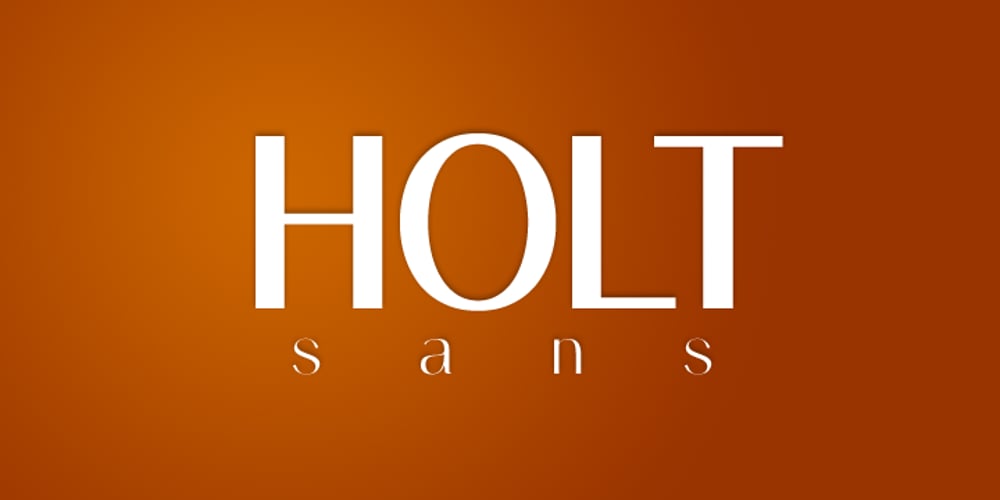
Holt Sans Font Family was designed by Kent Swecker and published by A New Machine. Holt Sans contains 6 styles and family package options. Holt is a sans serif font that works best at larger sizes and display. The substantial contrast between the thick and thin stokes lends it an air of elegance that would make it suitable for fashion design, magazine headers as well as a large range of advertising.